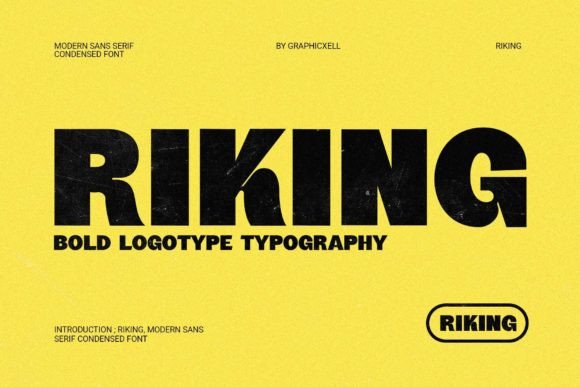
Introducing Riking Font, the epitome of sleek and contemporary design. This condensed sans-serif typeface is the ultimate choice for those seeking modern simplicity and sophistication. Created by the talented minds at Graphicxell, Riking Font is here to elevate your creative projects to new heights.
With its clean lines and compact design, Riking Font exudes a sense of elegance and refinement. Its minimalist aesthetic makes it a perfect fit for any project that craves a touch of sophistication. Whether you're crafting a logo that demands attention or designing captivating headlines, Riking Font will ensure your message shines through with unparalleled clarity.
Captivate your audience with Riking Font's sharp and professional look. Its compact and condensed nature allows for maximum impact, making every word a statement. Your designs will exude confidence and authority, leaving a lasting impression on anyone who lays eyes on them.
But Riking Font isn't just about looks. It's also incredibly versatile and adaptable. Its clean and crisp letters seamlessly blend together, making it ideal for digital interfaces and web designs. With Riking Font, your online presence will radiate professionalism and style, setting you apart from the competition.
Choosing Riking Font means choosing a font that understands your vision and helps you express it effortlessly. Its contemporary charm speaks volumes about your brand's values and dedication to excellence. Let Riking Font be your creative companion and watch as it transforms your projects into works of art.